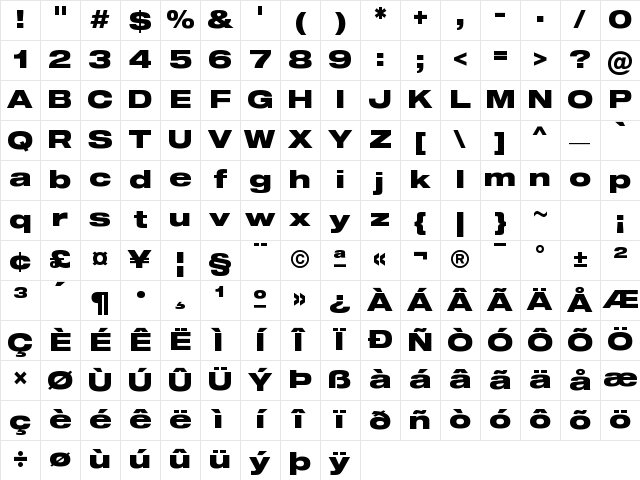
Sequel100Black-85 &
Foundry: OGJ Type Design
Designer: Oliver Jeschke
Design Context for Sequel100Black-85
Sequel100Black-85 is a composed and adaptable typeface that performs quietly and consistently across a wide range of design contexts.
Who designed the Sequel100Black-85 & font?